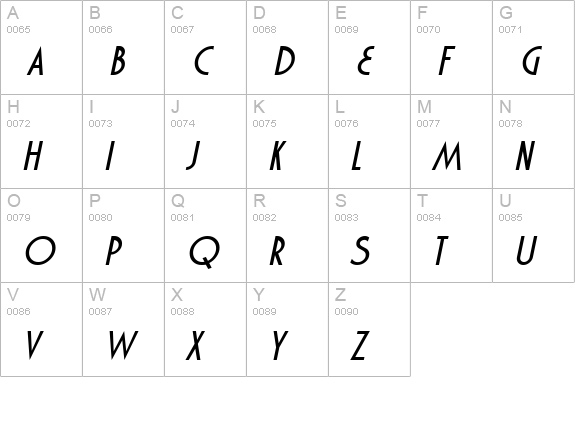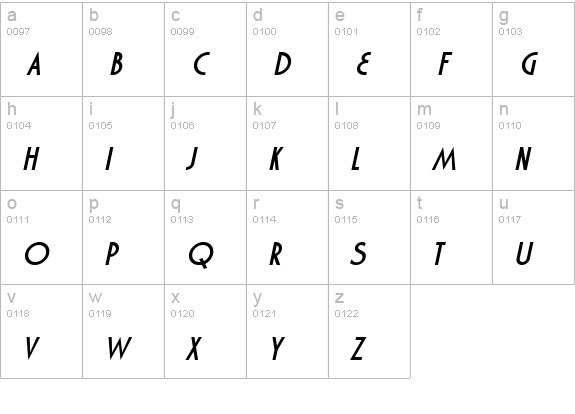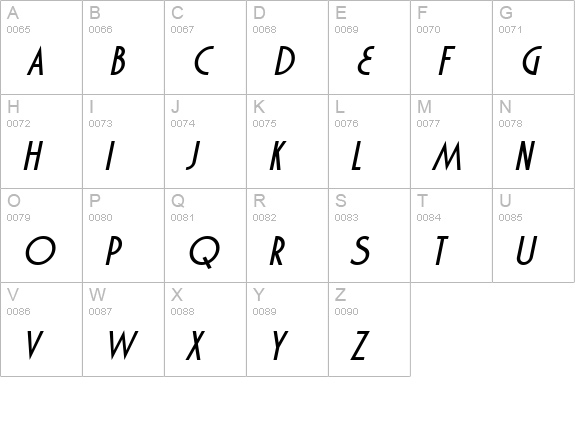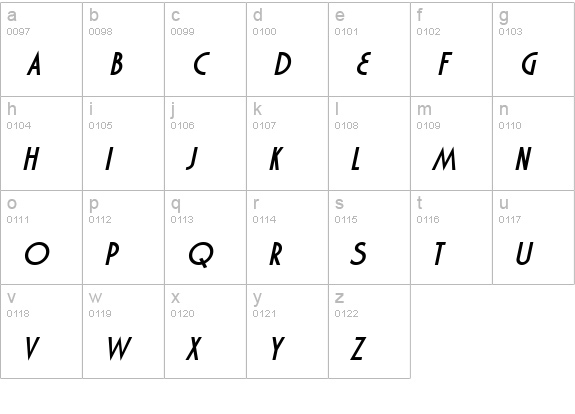
Introducing Marquisette BTN BoldOblique, a captivating and versatile font that is sure to make a lasting impression. This unique typeface combines elegance with a touch of modernity, making it perfect for a wide range of design projects. With its bold and oblique styling, Marquisette BTN commands attention and adds a powerful visual element to any design. Whether you're creating eye-catching logos, striking headlines, or stylish branding materials, this font is sure to elevate your work to new heights. The sleek and flowing letterforms of Marquisette BTN BoldOblique exude confidence and sophistication. Its distinctive curves and sharp angles create a harmonious balance, resulting in a font that is both visually stunning and highly readable. One of the most remarkable aspects of Marquisette BTN BoldOblique is that it is freely available to download at FontsMarket.com. This means that you can enjoy the beauty and versatility of this font without any cost or restrictions. It's a fantastic opportunity to enhance your design projects with a premium font, all while staying within your budget. Whether you're a professional designer or an aspiring creative, Marquisette BTN BoldOblique is a must-have addition to your font collection. Its timeless appeal, combined with its availability as a free download, makes it an invaluable resource that you simply can't afford to miss. So don't hesitate - head over to FontsMarket.com and unlock the full potential of Marquisette BTN BoldOblique today.